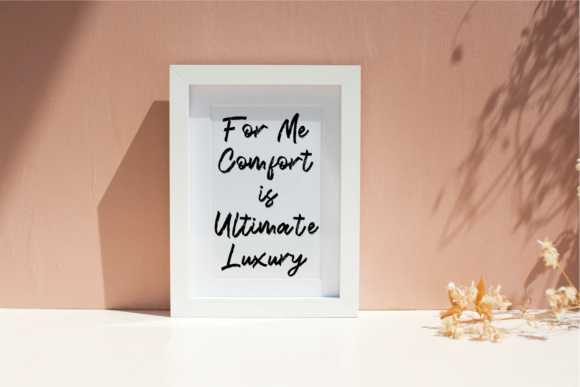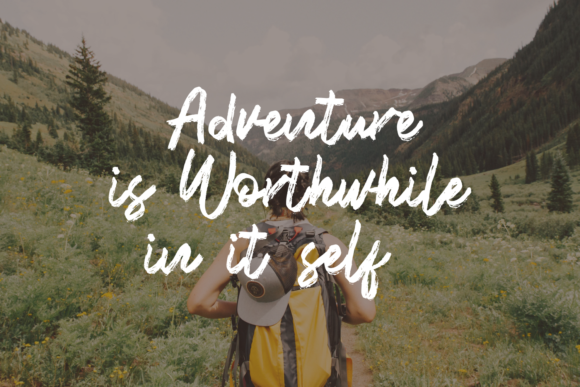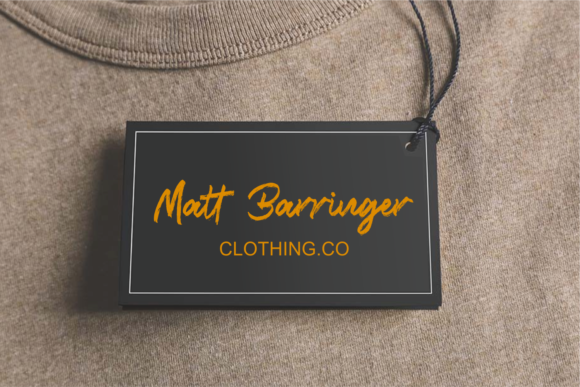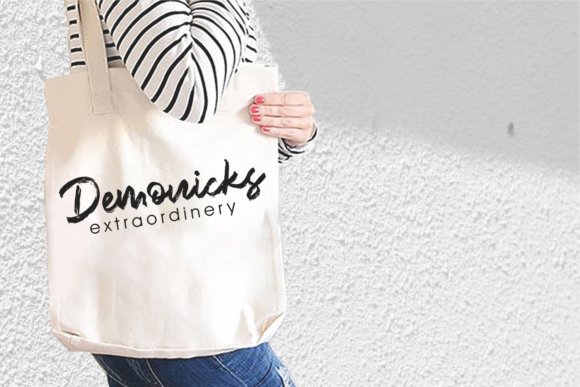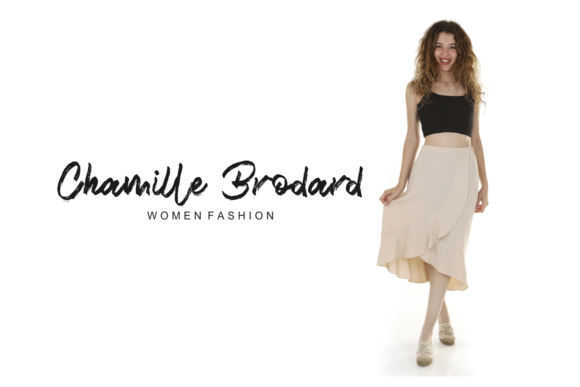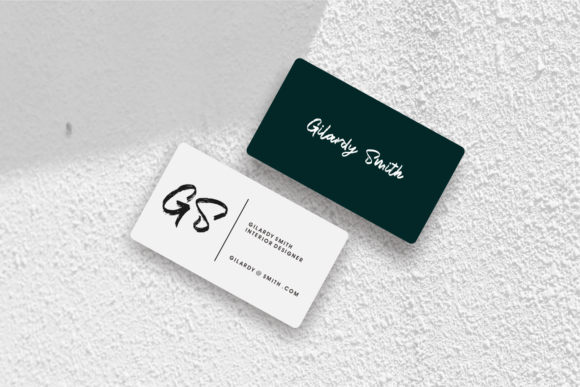
Introducing Brookliness Font: The Ultimate Brushed Handwritten Font for Designers
Are you tired of using the same old fonts for your designs? Look no further than Brookliness Font, a cool brushed handwritten font that’s perfect for creating eye-catching logos, branding, and quotes. With its unique and stylish aesthetic, Brookliness is sure to elevate any creation and make it stand out from the crowd.
The Characteristics of Brookliness Font
Brookliness Font is a brushed handwritten font that exudes a sense of creativity and playfulness. Its unique characteristics make it an incredibly versatile font that’s suitable for a wide range of design projects. Here are some of the key features that make Brookliness Font so special:
- Handwritten style: Brookliness Font has a distinctly handwritten feel that’s perfect for creating personal and relatable designs.
- Brushed texture: The font features a beautiful brushed texture that gives it a tactile and organic feel.
- Unique letterforms: Each letterform in Brookliness Font is carefully crafted to be distinct and stylish, making it perfect for creating eye-catching designs.
- Highly legible: Despite its creative and artistic feel, Brookliness Font is highly legible, making it suitable for use in a wide range of design applications.
The Benefits of Using Brookliness Font
So why should you choose Brookliness Font for your design projects? Here are just a few of the benefits of using this amazing font:
- Elevate your designs: Brookliness Font has the potential to elevate any design and make it stand out from the crowd. Its unique and stylish aesthetic is sure to grab attention and leave a lasting impression.
- Perfect for branding: With its creative and artistic feel, Brookliness Font is perfect for creating branding materials that reflect your company’s personality and style.
- Versatile: Brookliness Font is incredibly versatile and can be used in a wide range of design applications, from logos and posters to social media graphics and more.
How to Use Brookliness Font in Your Designs
So how can you use Brookliness Font in your designs? Here are a few ideas to get you started:
- Logos: Use Brookliness Font to create eye-catching logos that reflect your company’s personality and style.
- Branding materials: Use Brookliness Font to create branding materials such as business cards, brochures, and letterheads.
- Posters and flyers: Use Brookliness Font to create eye-catching posters and flyers that grab attention and communicate your message.
- Social media graphics: Use Brookliness Font to create social media graphics that stand out from the crowd and reflect your brand’s personality.
Tips and Tricks for Getting the Most Out of Brookliness Font
Here are a few tips and tricks for getting the most out of Brookliness Font:
- Experiment with different colors: Brookliness Font looks great in a wide range of colors, so don’t be afraid to experiment and find the perfect color for your design.
- Use it with other fonts: Brookliness Font pairs well with a wide range of other fonts, so feel free to get creative and experiment with different font combinations.
- Pay attention to spacing: Make sure to pay attention to spacing when using Brookliness Font, as it can affect the overall look and feel of your design.
In conclusion, Brookliness Font is a cool brushed handwritten font that’s perfect for designers and crafters looking to elevate their designs and create eye-catching logos, branding, and quotes. With its unique and stylish aesthetic, highly legible letterforms, and versatile design, Brookliness Font is sure to become a go-to font in your design library. So why wait? Download Brookliness Font today and start creating amazing designs that stand out from the crowd!